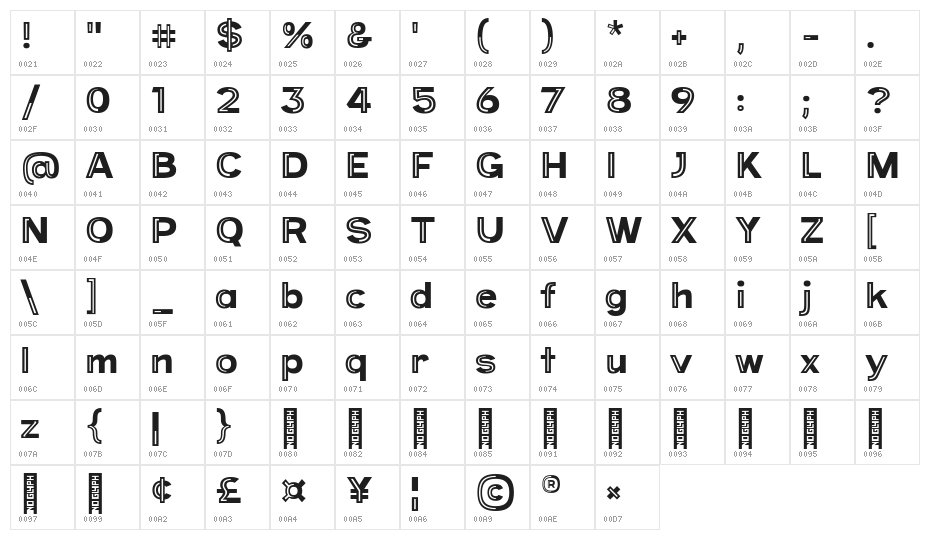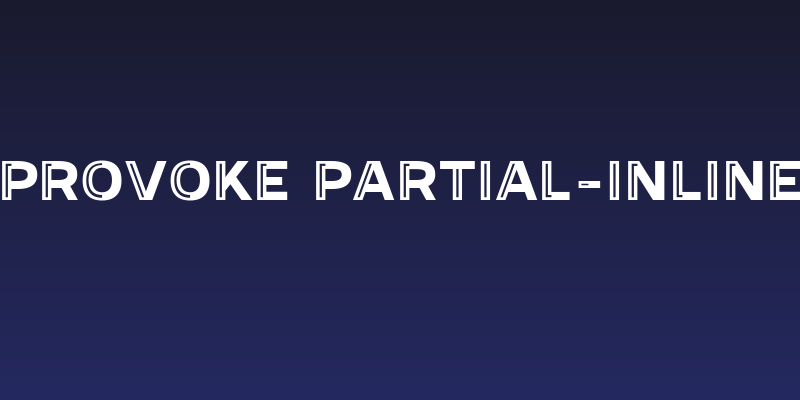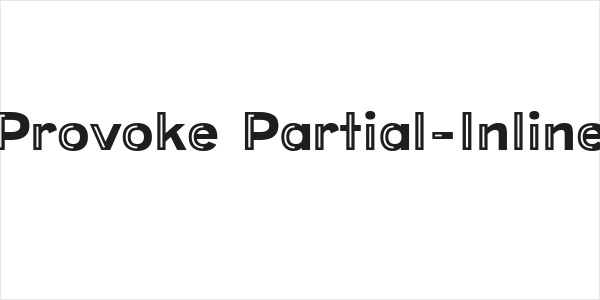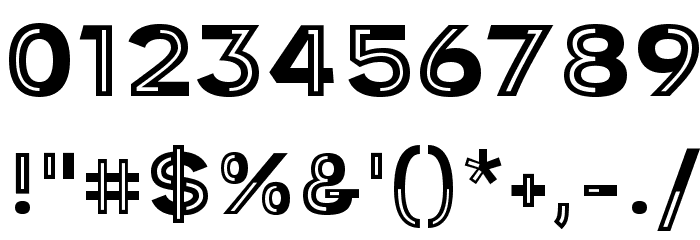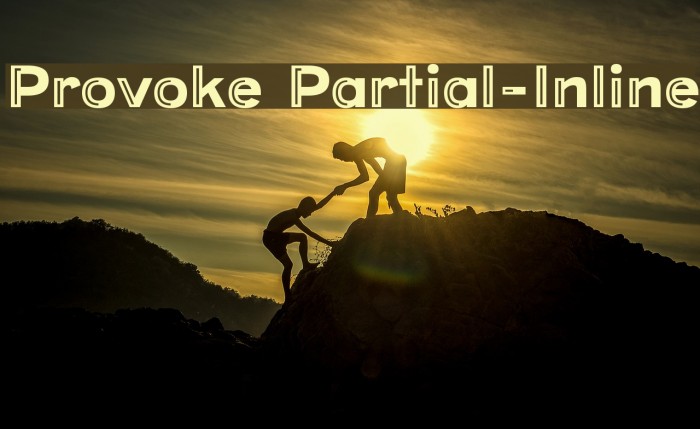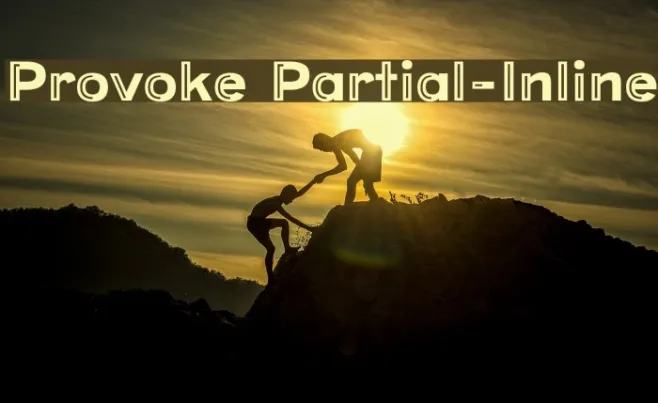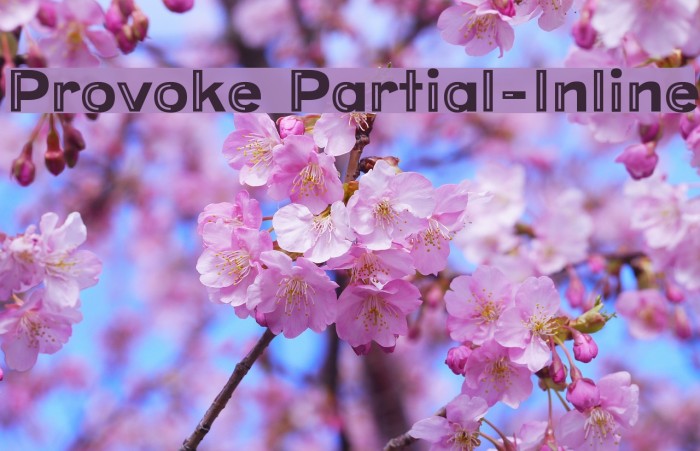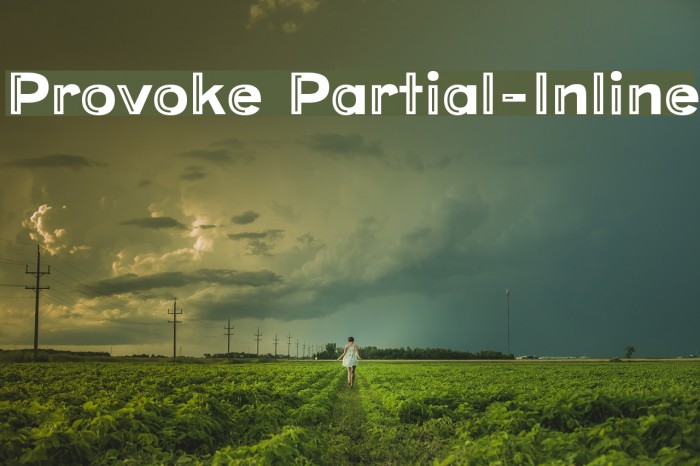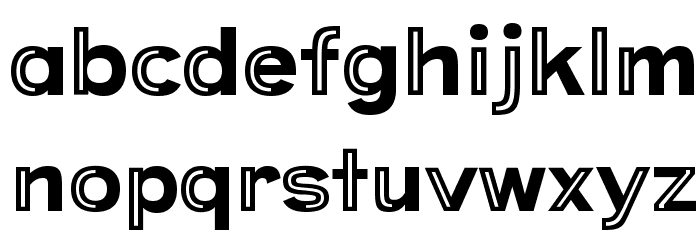
Provoke Partial-Inline Font
Provoke Partial-Inline Description
This font features a bold and striking design with a partial inline style that adds a unique visual interest. The uppercase letters are strong and impactful, while the lowercase letters maintain a consistent weight, providing a balanced appearance. The numerals are clear and distinct, making them suitable for various applications. The special characters are well-integrated, ensuring versatility in design projects. The overall aesthetic is modern and dynamic, making it ideal for attention-grabbing headlines and branding purposes.
| Proposed Projects | Ideal for branding, advertising, poster design, and headlines. |